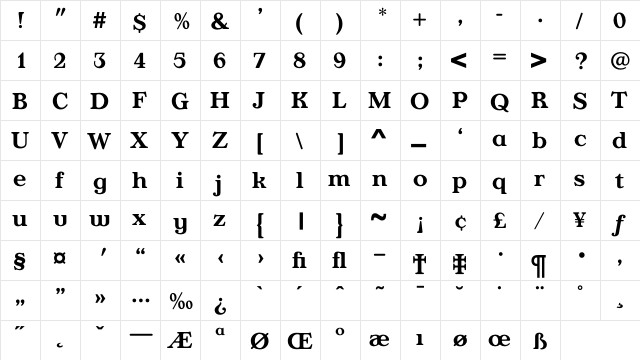
AppleyardMedium Regular
Design Context for AppleyardMedium Typeface
AppleyardMedium takes a measured approach to typography — its balanced proportions and neutral character make it a reliable workhorse for both digital and print work.